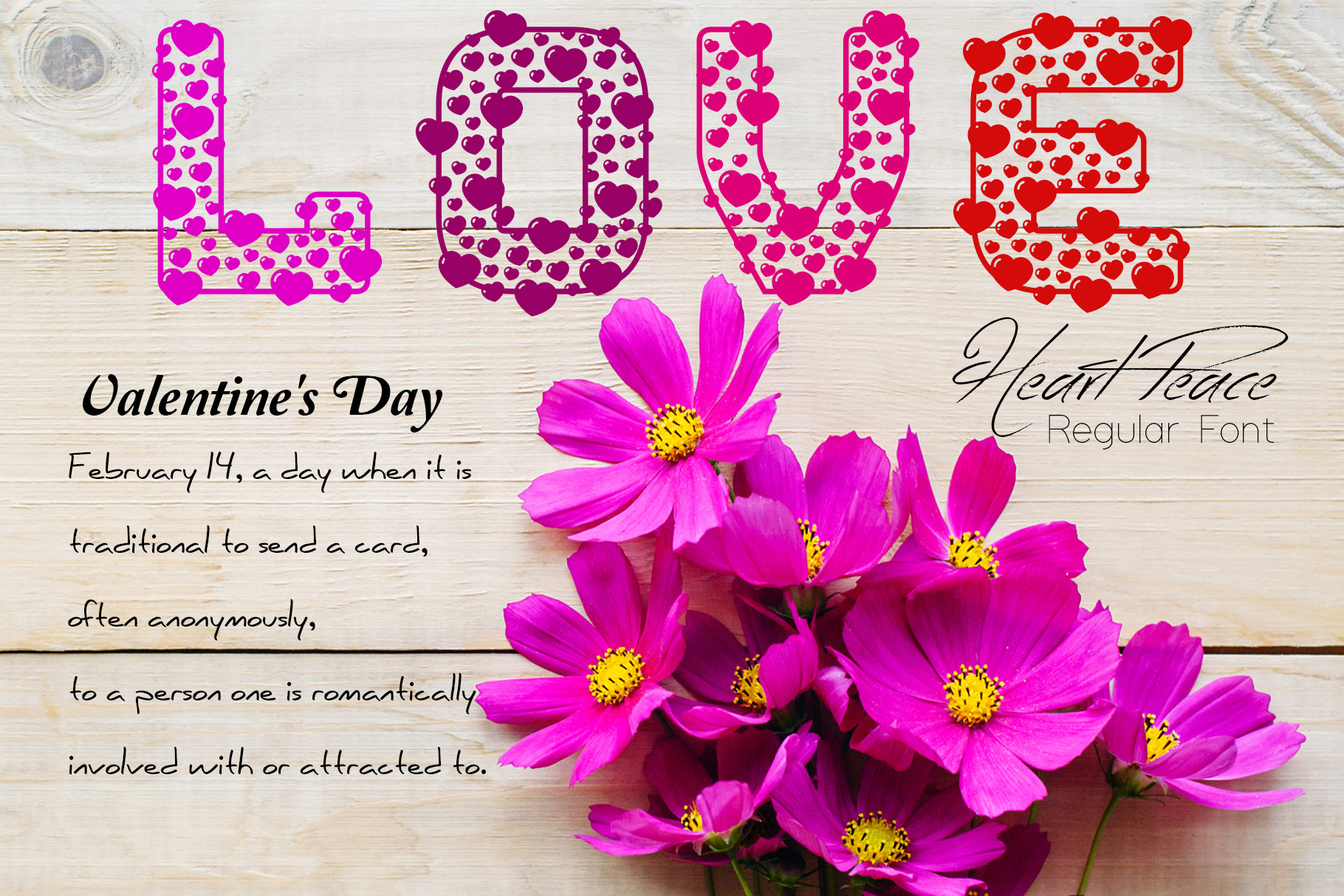
Heart Peace Font
It is the only font that combines letters with hearts. It is perfectly integrated and perfectly designed.
Perfect for DIY projects, greeting cards, labels, quotes, posters, wall art, branding, packaging, websites, photos